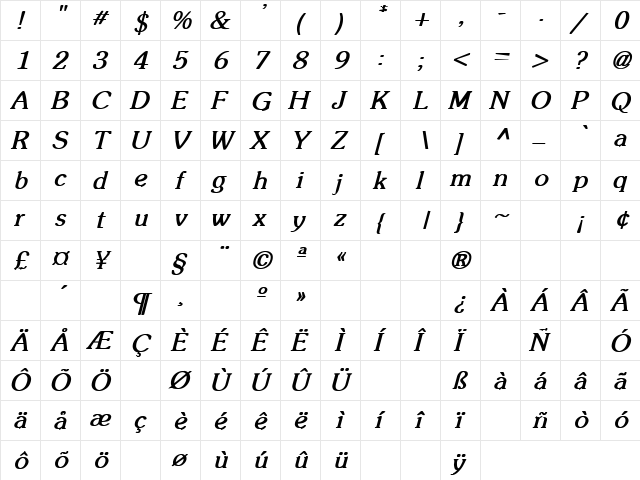
Train Kept 1 Bold Italic
Design Context for Train Kept 1 Typeface
Train Kept 1 takes a measured approach to typography — its balanced proportions and neutral character make it a reliable workhorse for both digital and print work. Its italic angle brings a sense of urgency and motion to the letterforms. Its bold stroke weight gives it real presence on the page.
Pro Tip: Try Train Kept 1 for annotation and caption copy alongside an upright companion — the contrast in angle creates a dynamic but ordered typographic system.